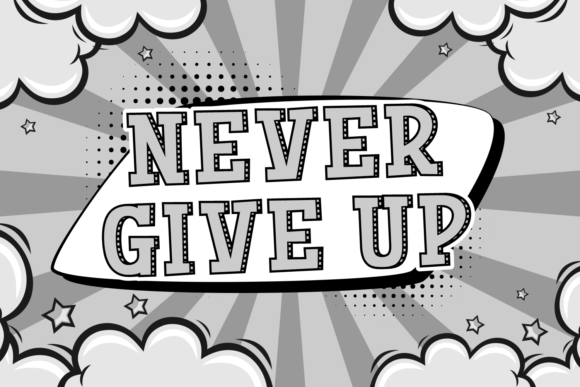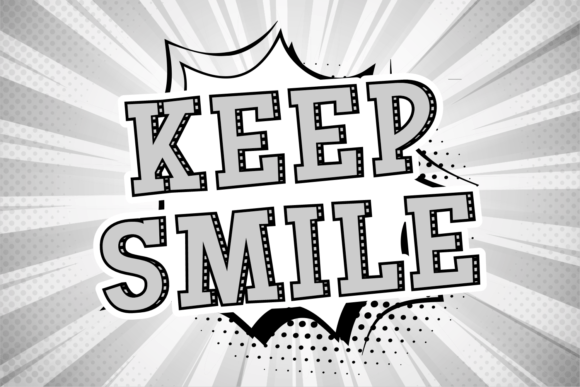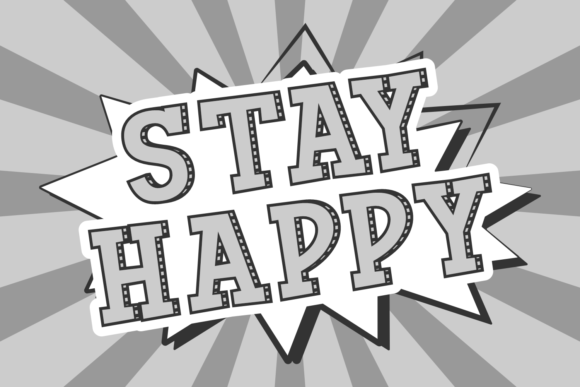
Introduction to Great Comic Font
Great Comic is a comic-style slab serif font.
The thick serifs and the captivating 3D look make it ideal for various designs such as posters, book covers, advertising materials, magazines, books, websites, and more Stand out by using this unique typeface in your next creative project.
Key Features of Great Comic Font
Why Choose Great Comic Font?